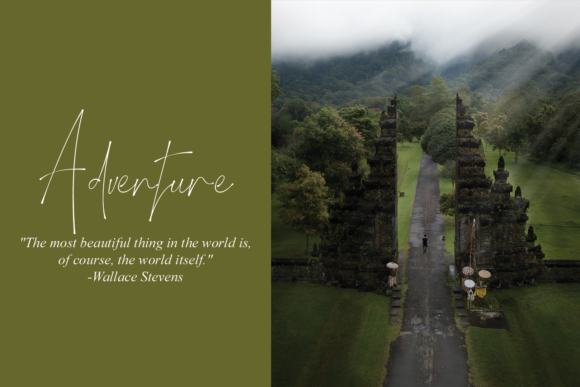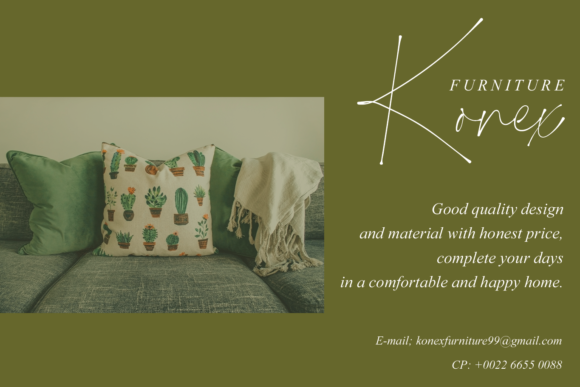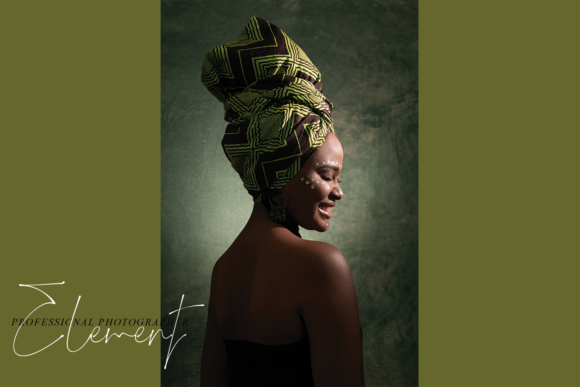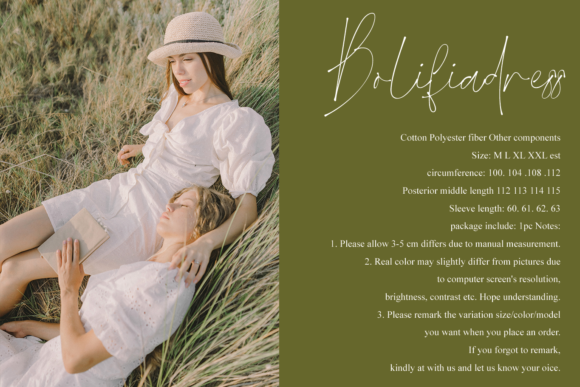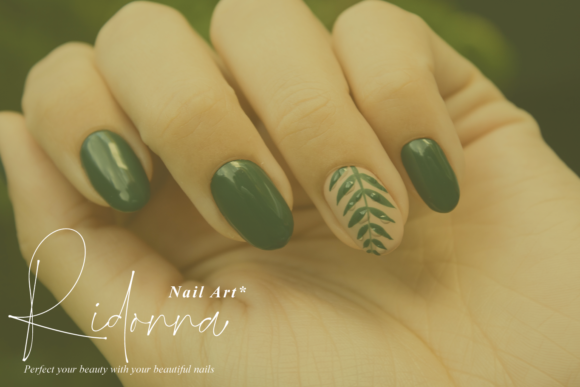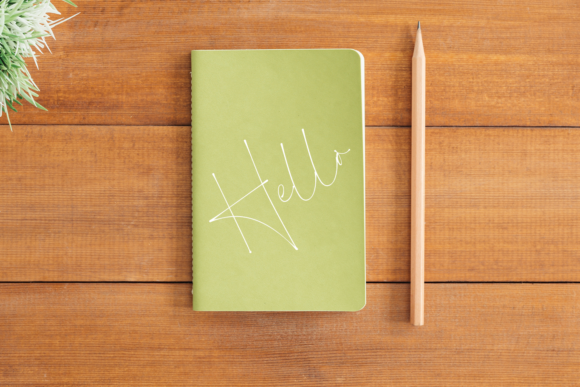
Memory Font
About Memory Font
Memory feels equally sophisticated and asymmetrical. It looks stunning on wedding invitations, thank you cards, quotes, greeting cards, logos, business cards, and every other design which needs a customized touch.